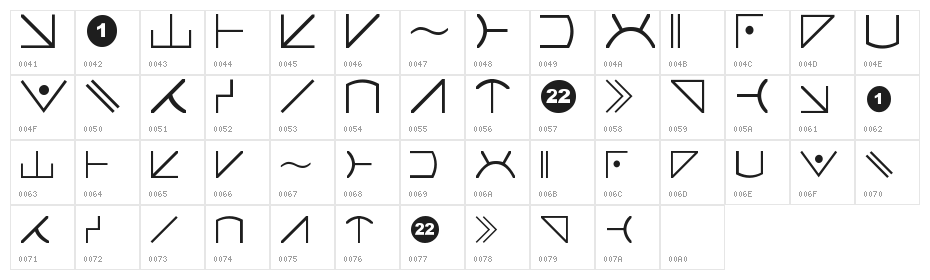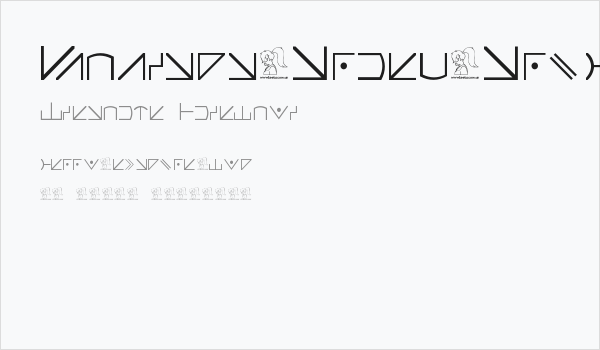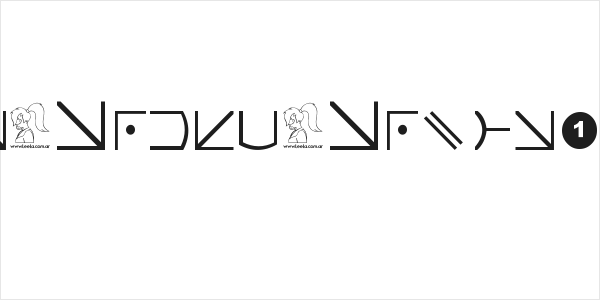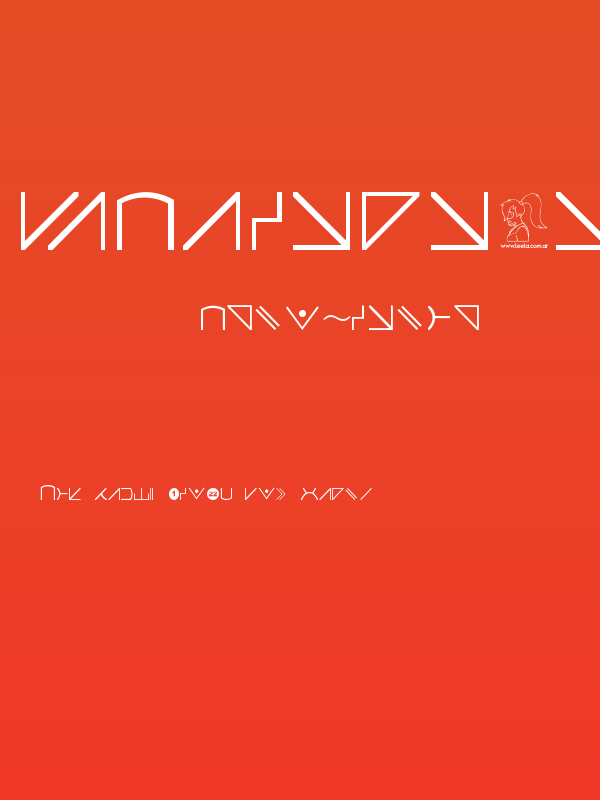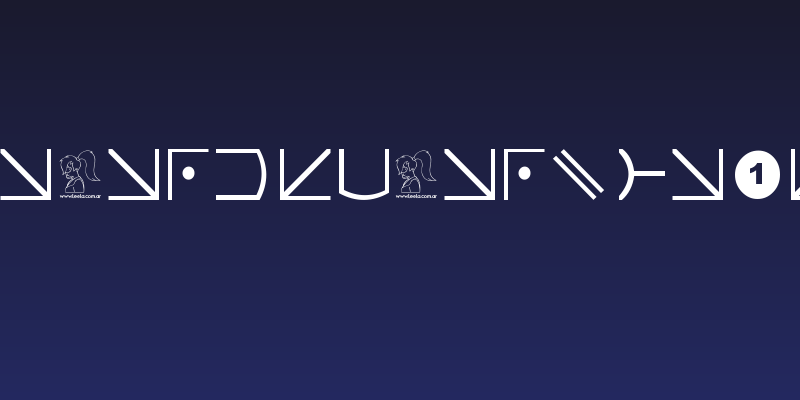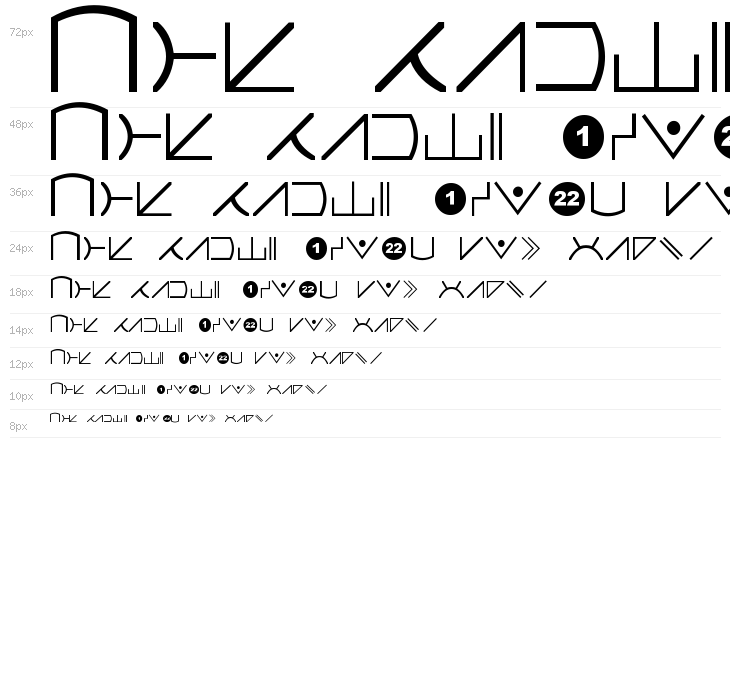
Futurama-Alien-Alphabet-Two Font
Futurama-Alien-Alphabet-Two Description
This is not a traditional font but rather a collection of symbols resembling an alien alphabet. The characters are geometric and abstract, featuring sharp angles, curves, and dots. Each symbol is distinct, with a futuristic and cryptic appearance, suggesting a fictional or extraterrestrial language. The design is consistent, with a uniform stroke weight and a clean, minimalist style. The symbols are evenly spaced, maintaining a balanced and organized look. This set is more decorative and thematic, suitable for creative projects that require a unique and otherworldly aesthetic.
| Overall Style | Futuristic, Cryptic |
| Use Case | Decorative elements, Thematic designs |
| Proposed Projects | Ideal for sci-fi themed designs, fictional languages in games or films, and creative artwork. |